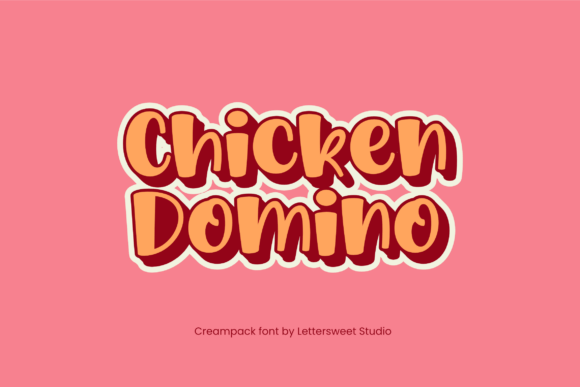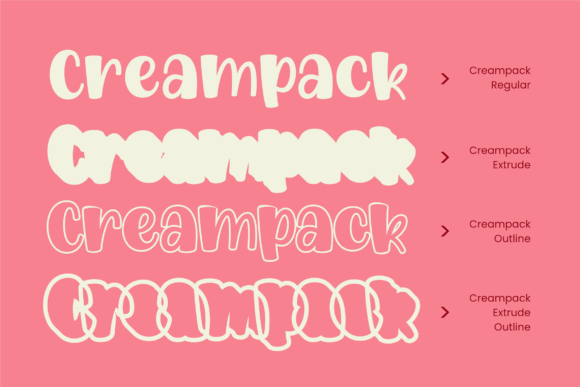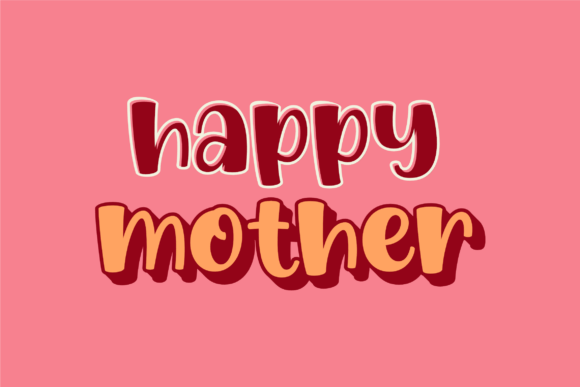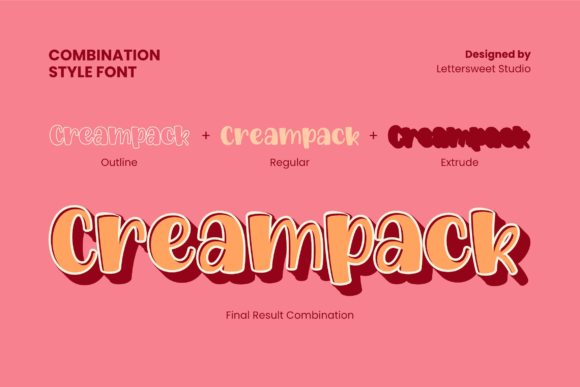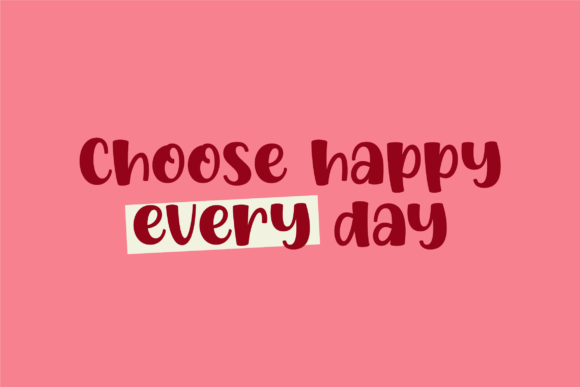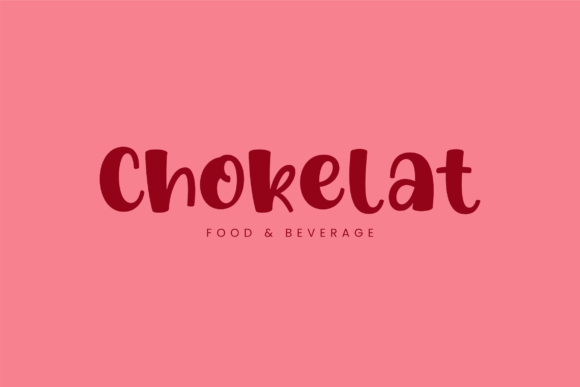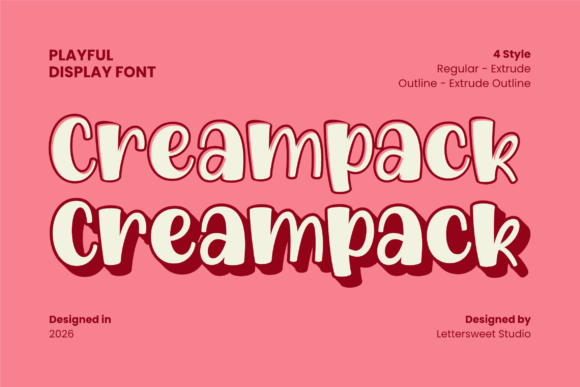
Introducing Creampack Font: The Ultimate Playful Display Font for Your Designs
Are you looking for a font that can add a touch of fun, warmth, and retro charm to your designs? Look no further than Creampack Font, a playful and bold display font that’s perfect for projects that need a friendly, cheerful, and eye-catching look. In this article, we’ll dive into the features and benefits of Creampack Font and explore how it can elevate your designs.
The Characteristics of Creampack Font
Creampack Font is a carefully crafted font that boasts rounded shapes and soft curves, giving it a unique and endearing personality. Its playful and bold design makes it perfect for grabbing attention and creating a lasting impression. Whether you’re designing for kids, food branding, social media posts, or cheerful packaging, Creampack Font is sure to deliver immediate visual impact.
Flexibility at Its Finest: 4 Stylish Variations
One of the standout features of Creampack Font is its versatility. This font comes with four stylish variations: Regular, Outline, Extrude, and Extrude Outline. This range of styles gives you the flexibility to create depth, dimension, and standout typography effortlessly. Whether you want to add a subtle touch or make a bold statement, Creampack Font has got you covered.
Regular Style: The Classic Look
The Regular style of Creampack Font is perfect for designs that need a friendly and approachable look. Its smooth and rounded shapes make it easy to read and understand, making it ideal for body text and headings.
Outline Style: Adding a Touch of Sophistication
The Outline style of Creampack Font adds a touch of sophistication to your designs. Its outlined letters create a beautiful contrast that’s perfect for designs that need a bit of elegance.
Extrude Style: Adding Depth and Dimension
The Extrude style of Creampack Font takes your designs to the next level by adding depth and dimension. Its 3D-like effect creates a stunning visual impact that’s sure to grab attention.
Extrude Outline Style: The Ultimate Statement
The Extrude Outline style of Creampack Font is the ultimate statement font. Its combination of 3D-like effect and outlined letters creates a truly unique and eye-catching look that’s perfect for designs that need to stand out from the crowd.
Creampack Font is perfect for a wide range of design projects, including:
- Kids’ designs: Creampack Font’s playful and fun design makes it perfect for kids’ books, toys, and games.
- Food branding: Creampack Font’s friendly and approachable look makes it ideal for food packaging, restaurant menus, and food blogs.
- Social media posts: Creampack Font’s bold and eye-catching design makes it perfect for social media posts that need to grab attention.
- Cheerful packaging: Creampack Font’s playful and fun design makes it perfect for packaging designs that need to stand out on store shelves.
Why Choose Creampack Font?
So why choose Creampack Font for your designs? Here are just a few reasons:
- Unique and playful design: Creampack Font’s unique design sets it apart from other fonts and makes it perfect for designs that need a touch of fun and personality.
- Flexibility: Creampack Font’s four stylish variations give you the flexibility to create a wide range of designs.
| Author | Lettersweet |
In conclusion, Creampack Font is a playful and bold display font that’s perfect for designs that need a friendly, cheerful, and eye-catching look. Its four stylish variations give you the flexibility to create depth, dimension, and standout typography effortlessly. Whether you’re designing for kids, food branding, social media posts, or cheerful packaging, Creampack Font delivers immediate visual impact. So why wait? Try Creampack Font today and take your designs to the next level!